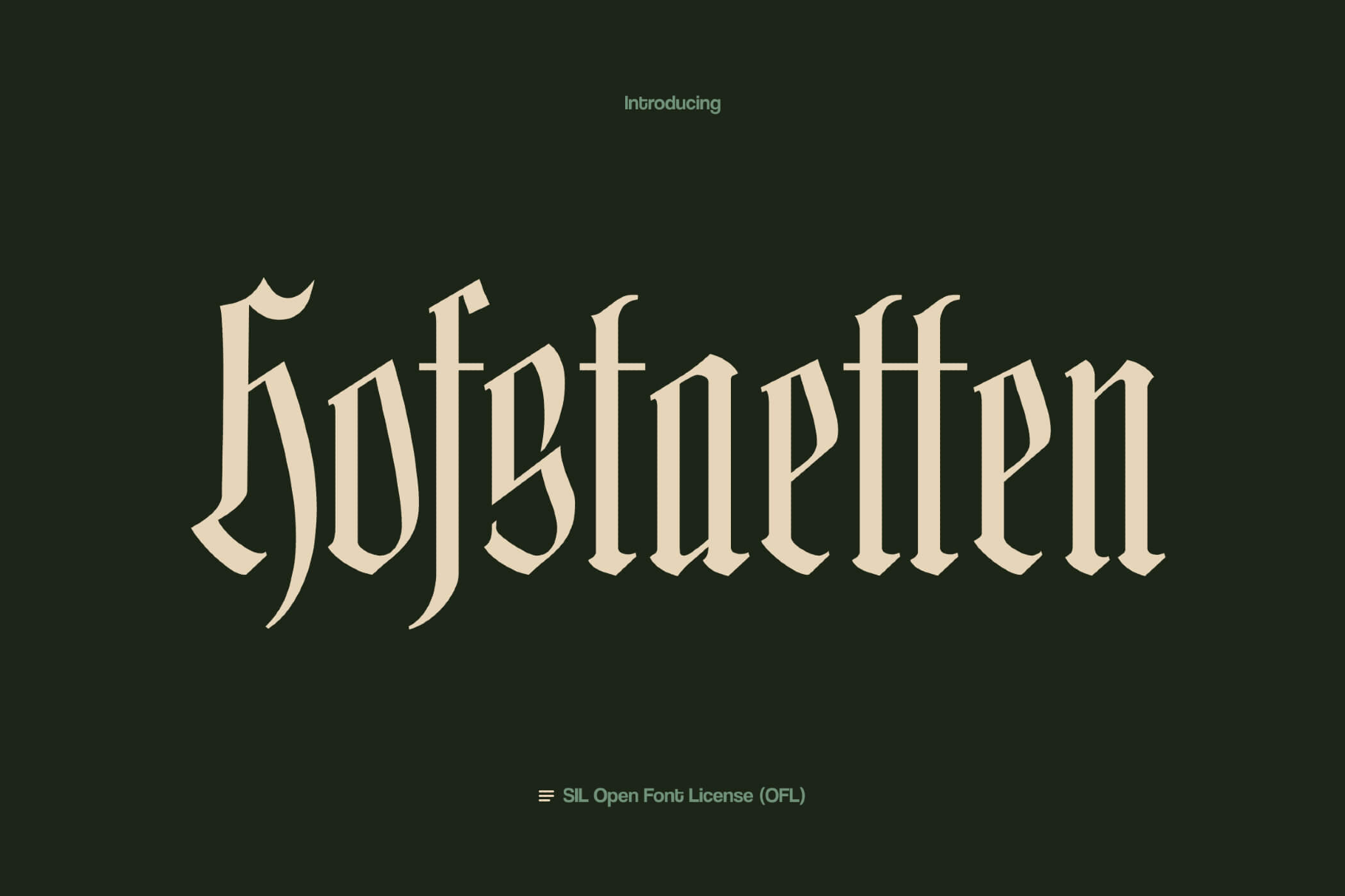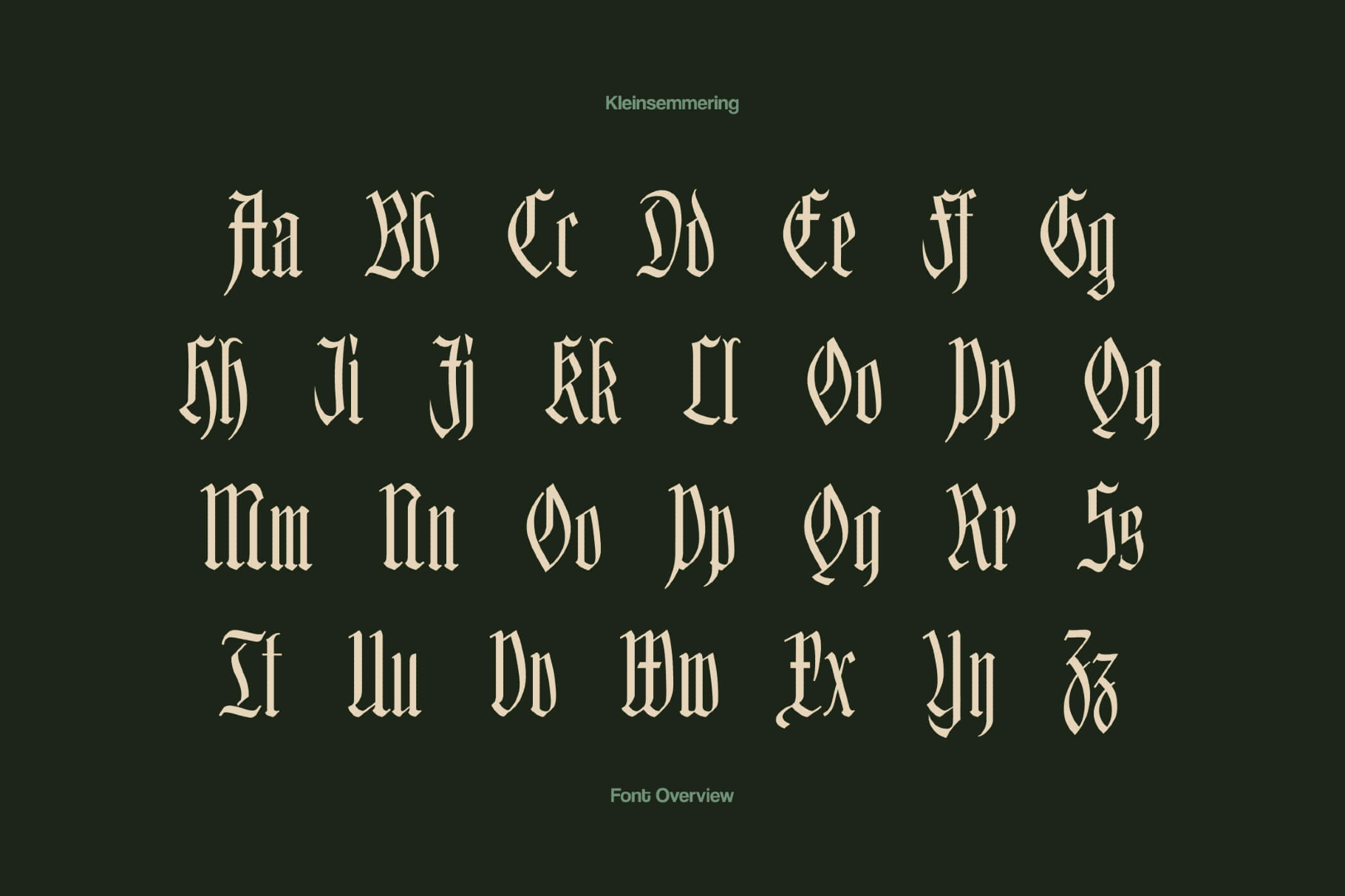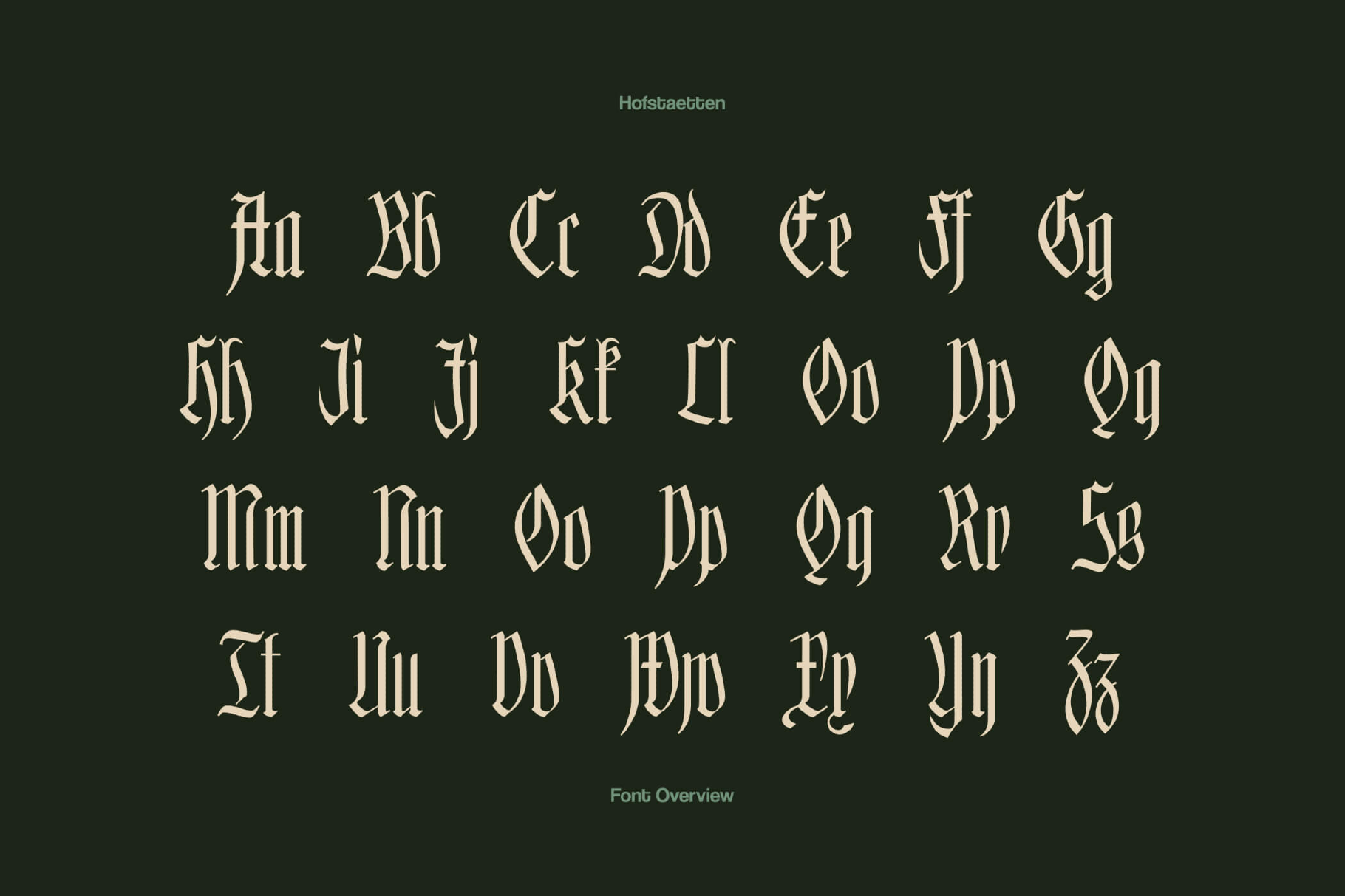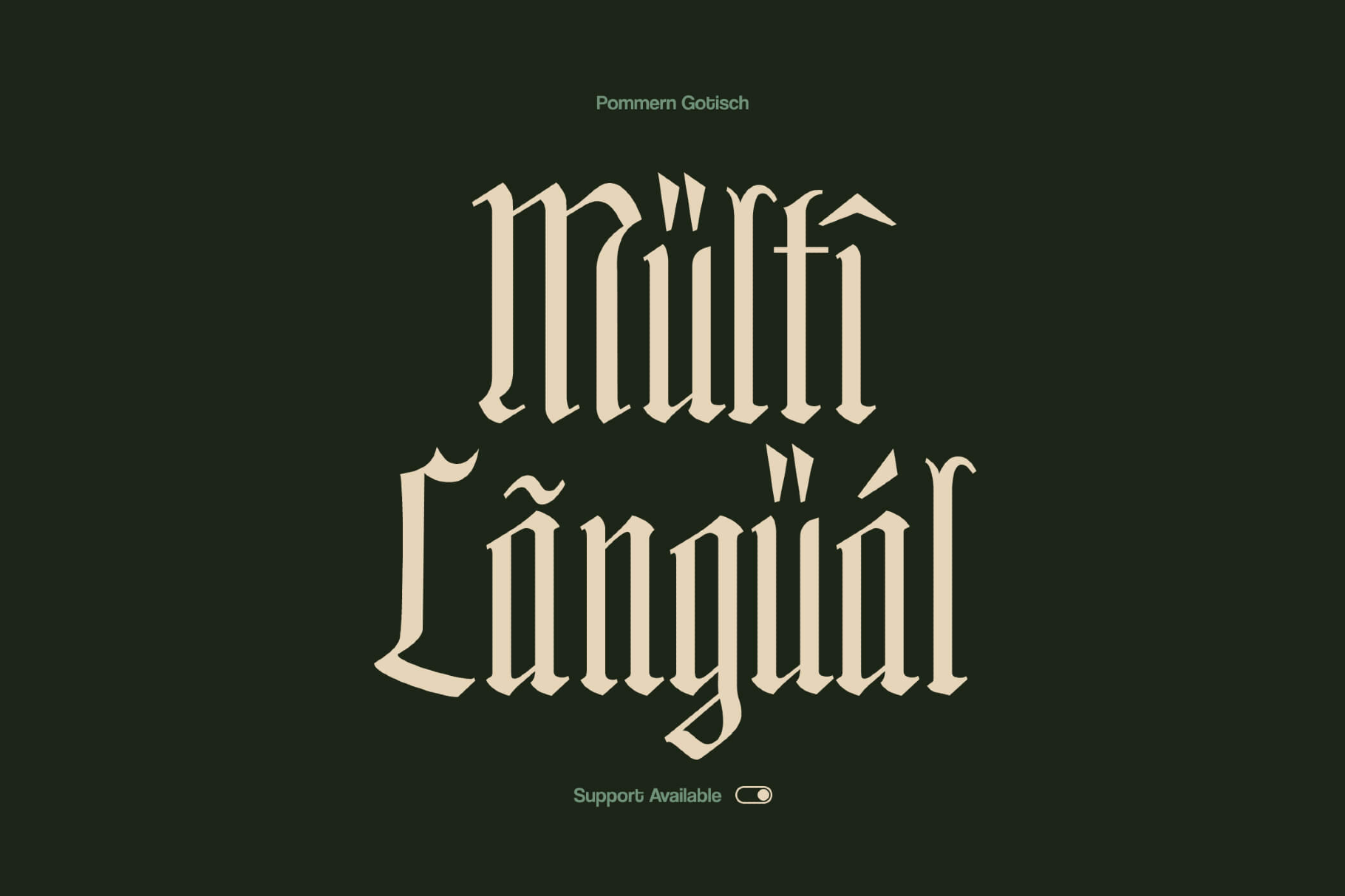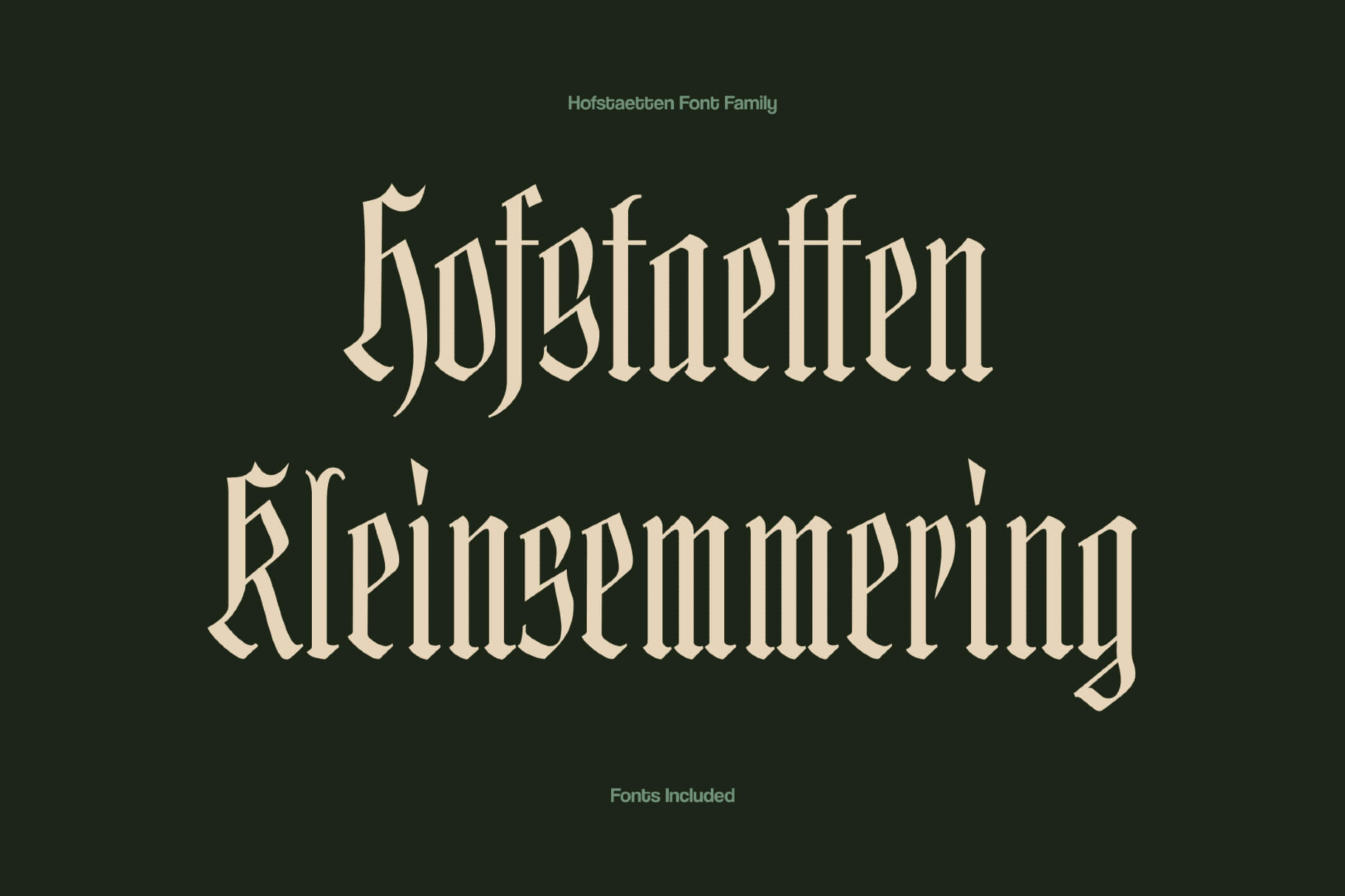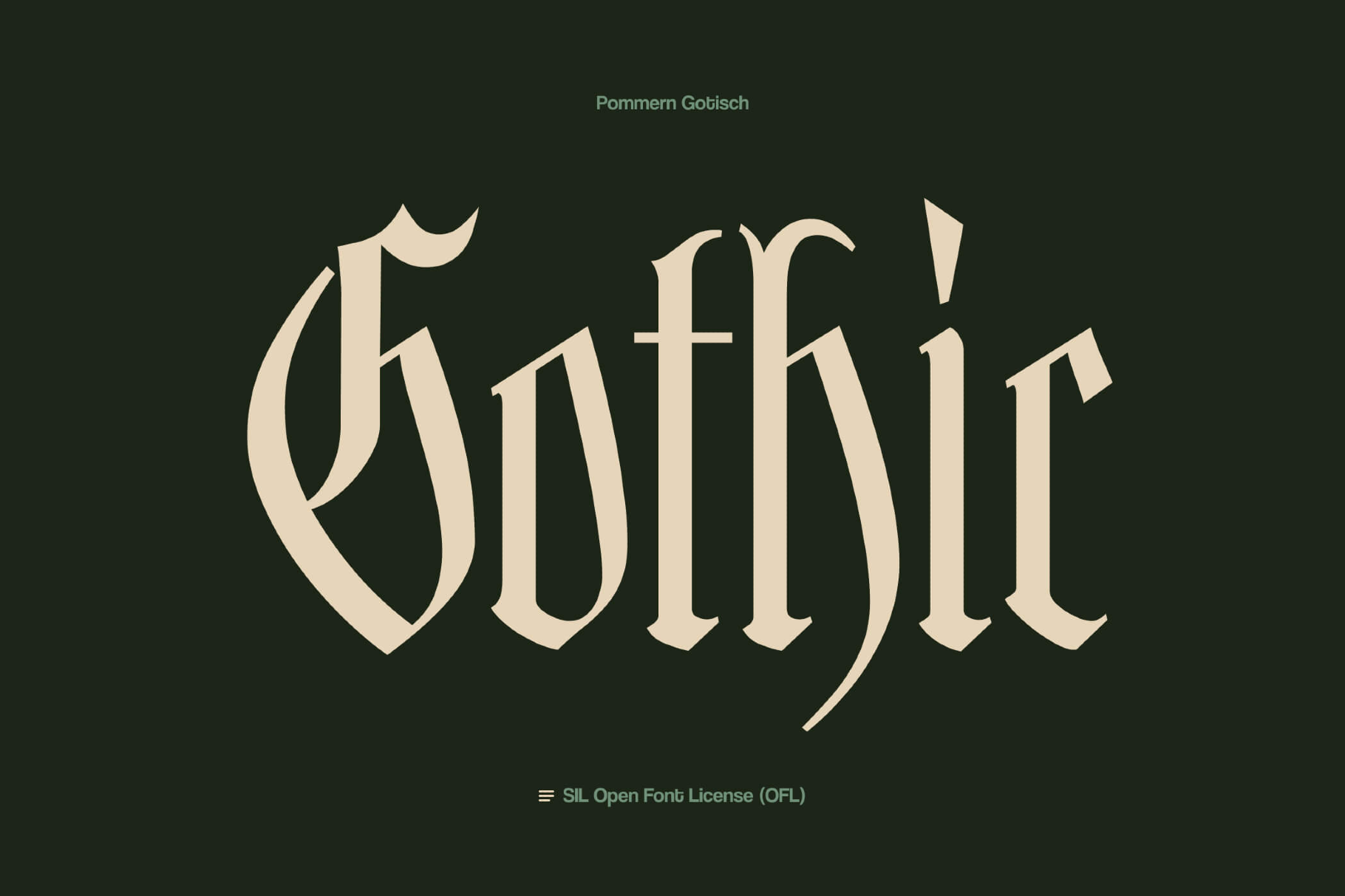
Hofstaetten German Gothic Font Family
Hofstaetten
Kleinsemmering
The Hofstaetten family comes from a reconstruction commissioned by an Austrian fire department captain, based on the original station inscriptions from 1930, so every glyph carries the character of lettering restored to its original façade. The overall effect falls between formal inscription and everyday signage, characterized by a precise, disciplined rhythm.
The tall, narrow verticals and sharply cut terminals suit regional beer or schnapps labels, historic or heritage-focused logos, ceremonial certificates, village or city festival posters, museum or exhibition graphics about local history, and book covers.
The family includes: uppercase and lowercase letters, numerals, punctuation, German accents, and ligatures.